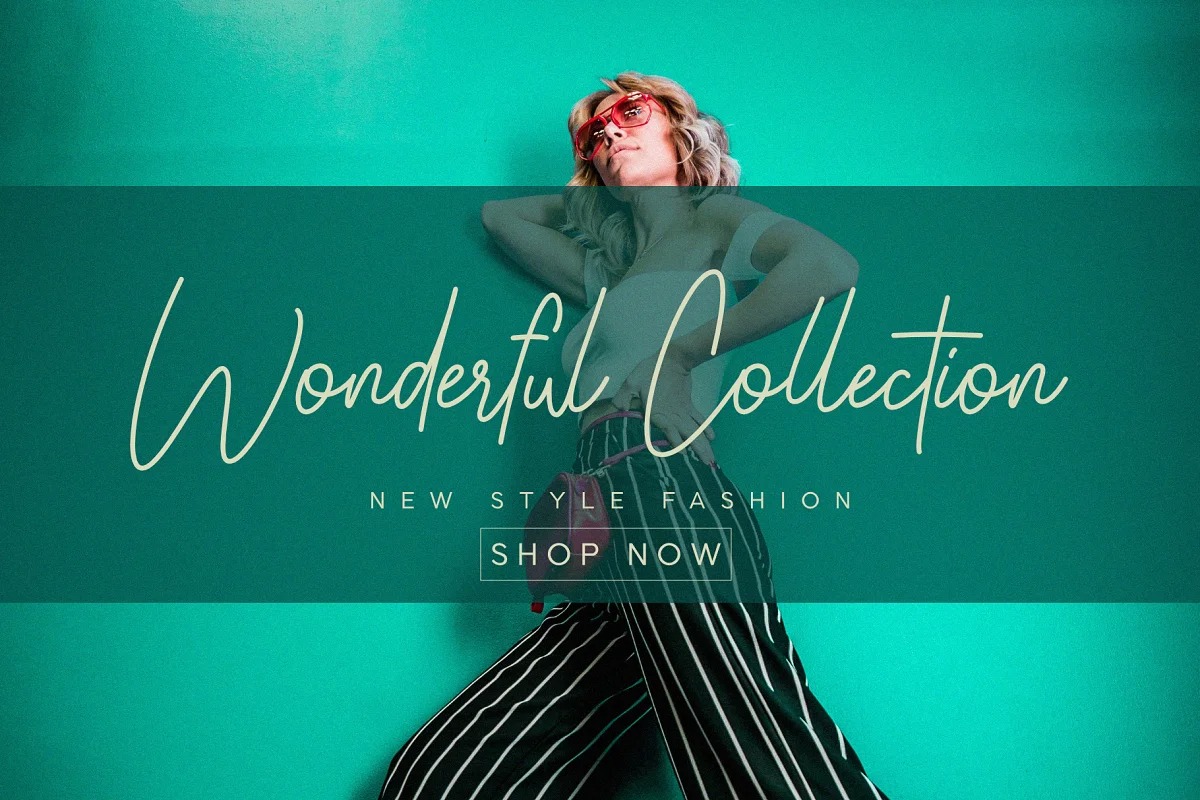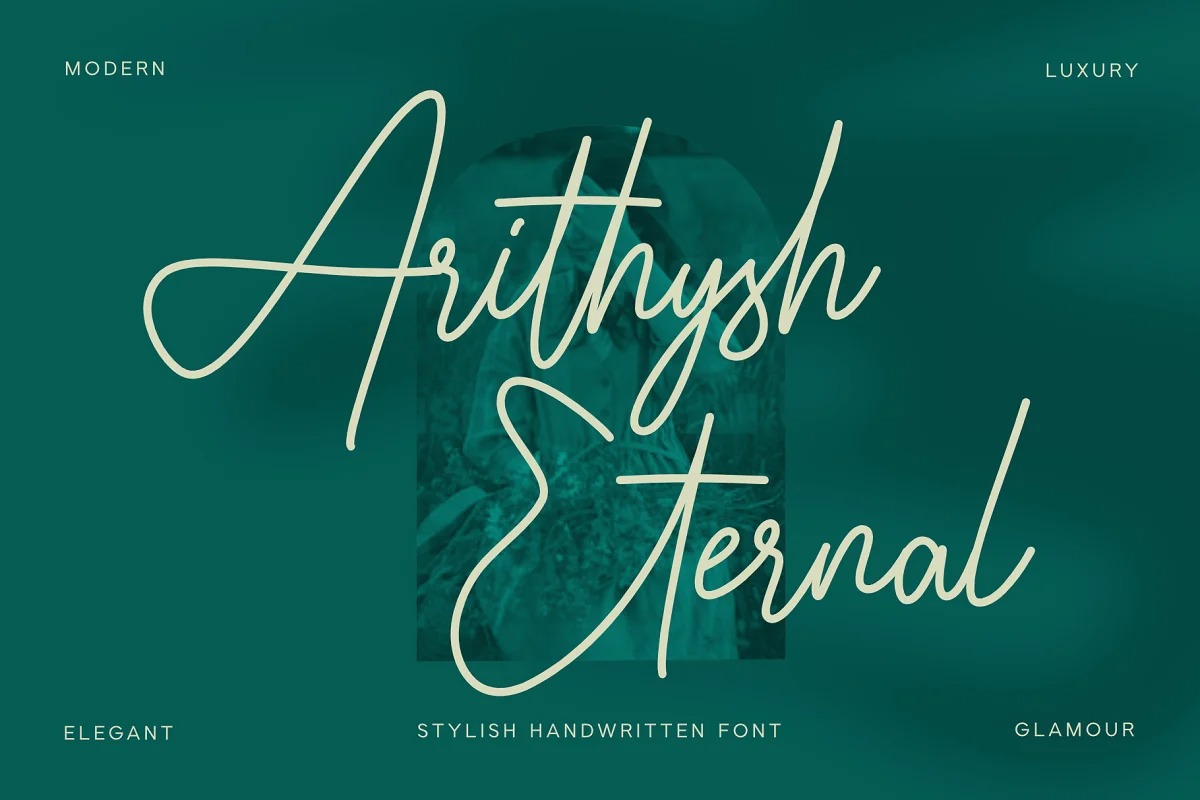
Arithysh Eternal Font
Arithysh Eternal Script Font is a beautiful script typeface that features charming and elegant handwritten characters. Arithysh Eternal Stylish Handwritten Font perfect for your favorite projects. It looks stunning on wedding invitations, thank you cards, quotes, greeting cards, logos, business cards and every other design which needs a handwritten touch. Fall in love with its incredibly distinct and timeless style and use it to create spectacular designs!